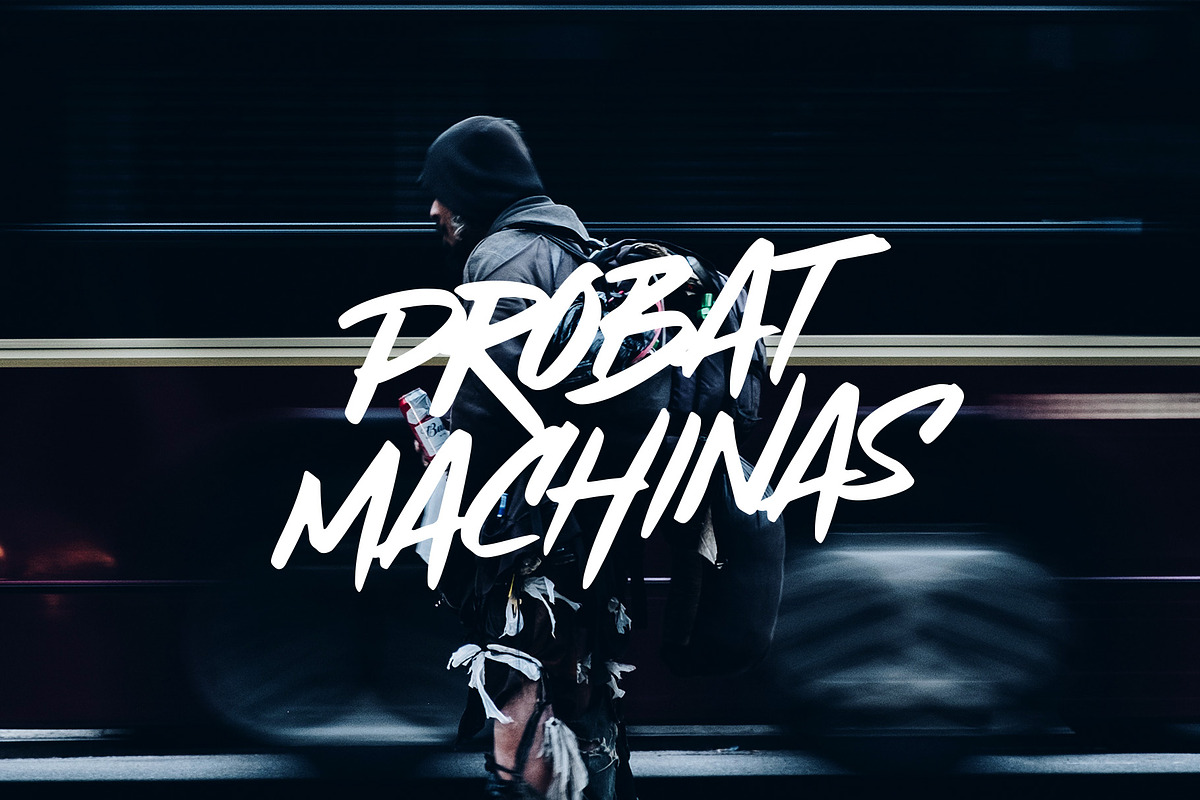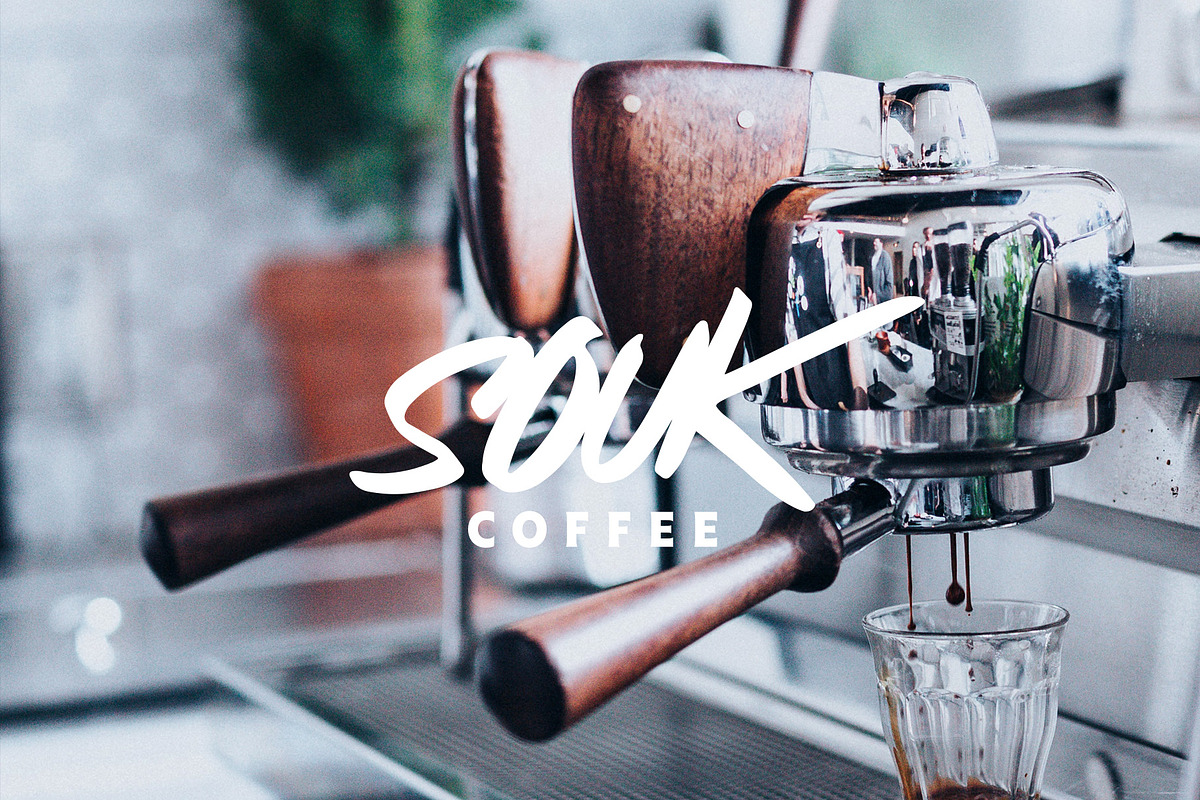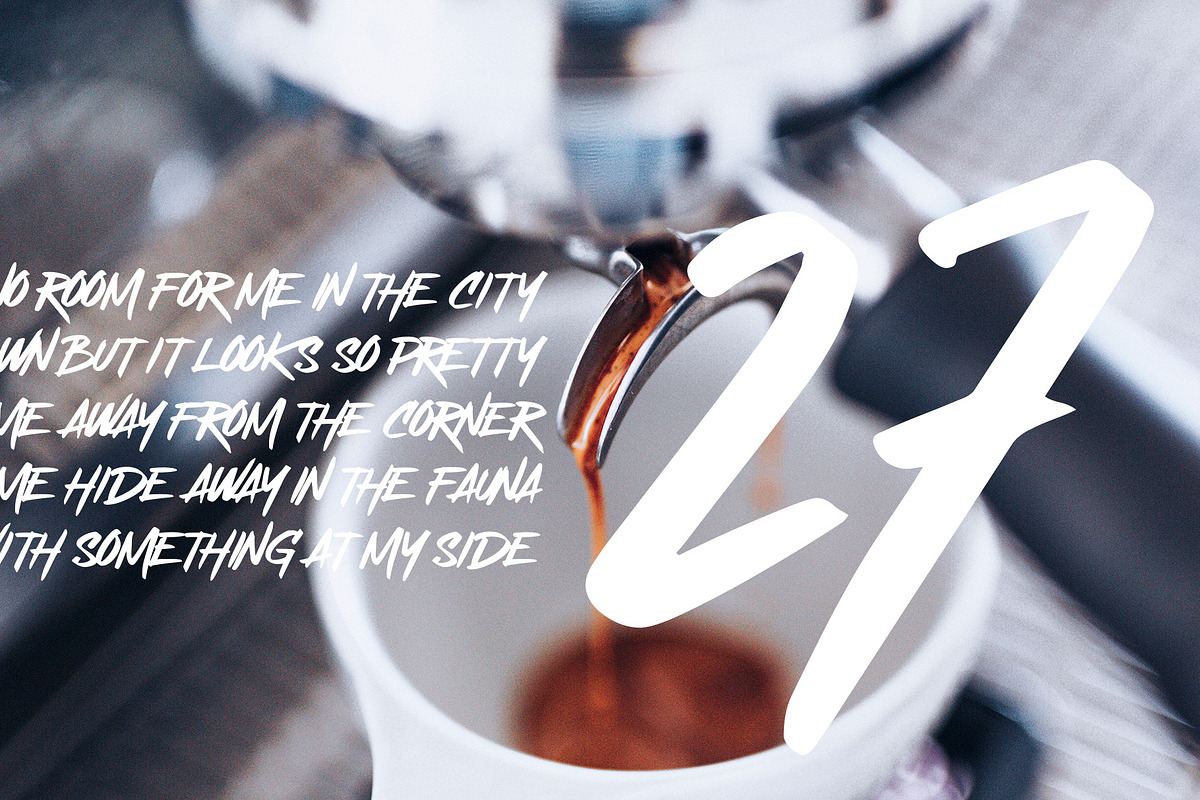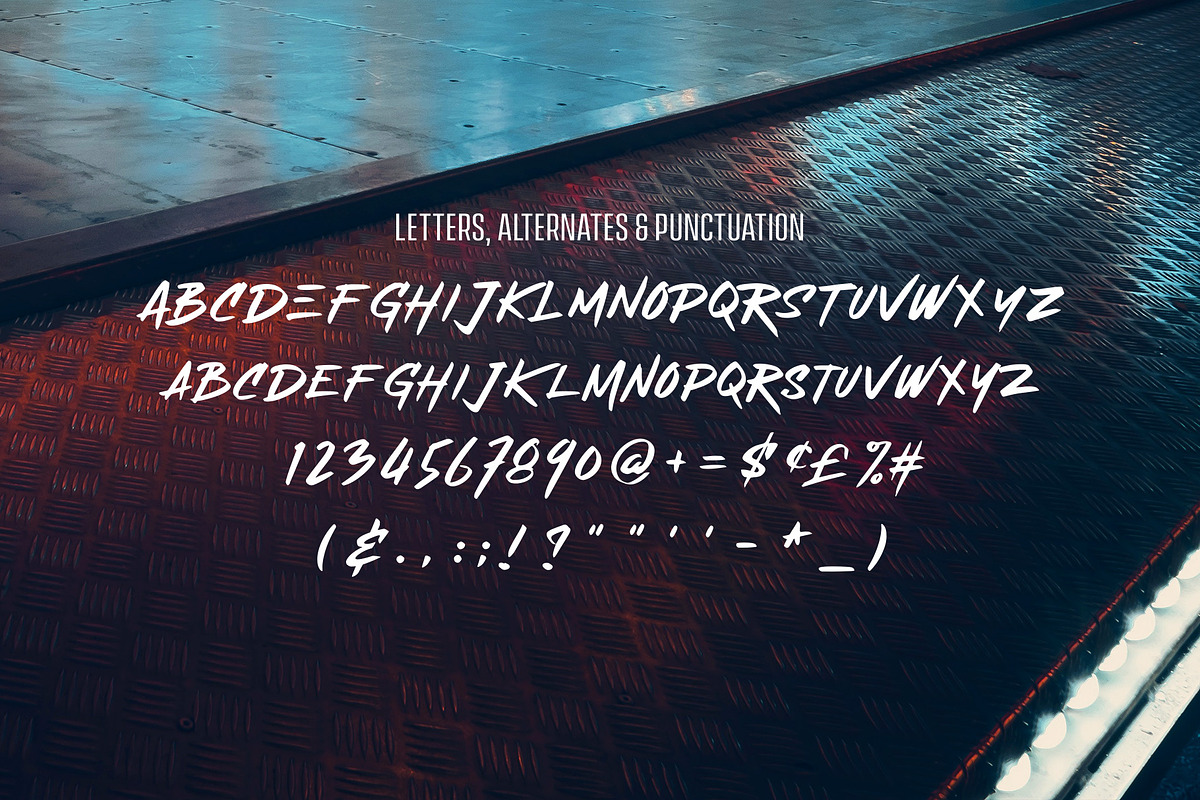
Roam Display Font
Roam is a handmade display font with fun thick brush impression at a glance. Brush inspired display with strong, catchy & striking form display. Roam ideally suited for headline tittle, logo, branding, posters etc.